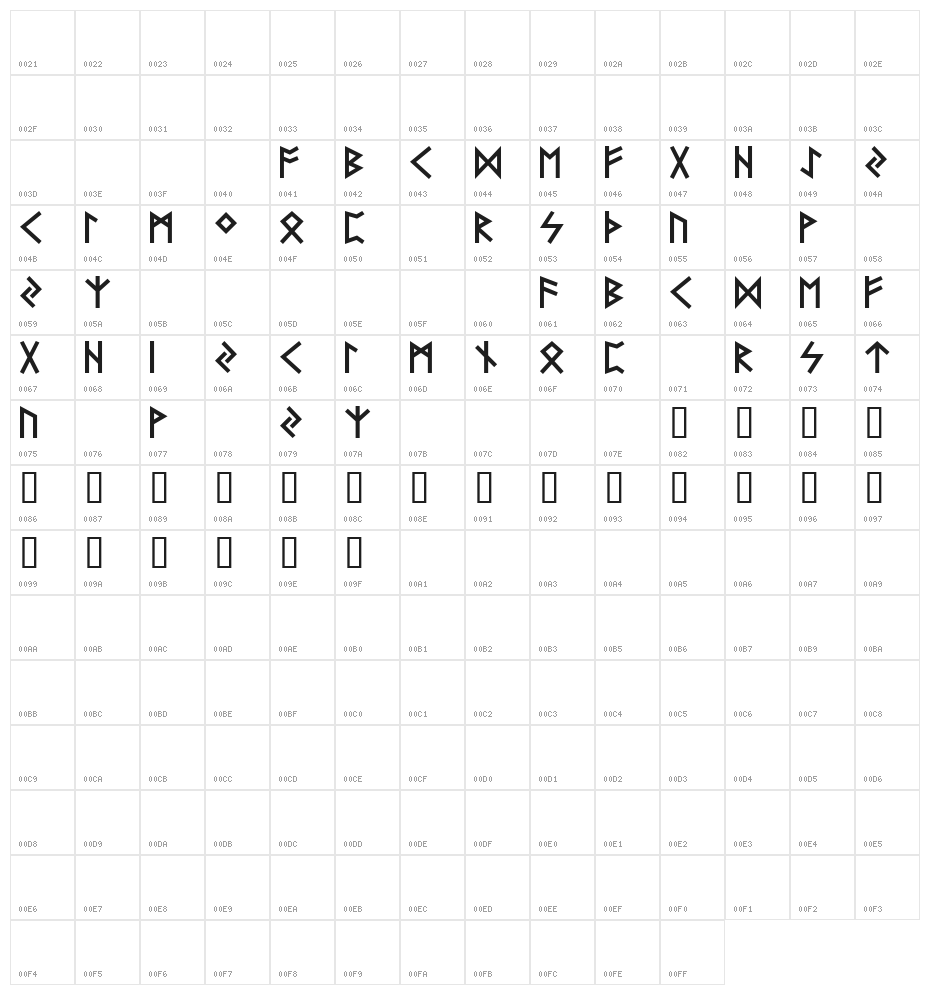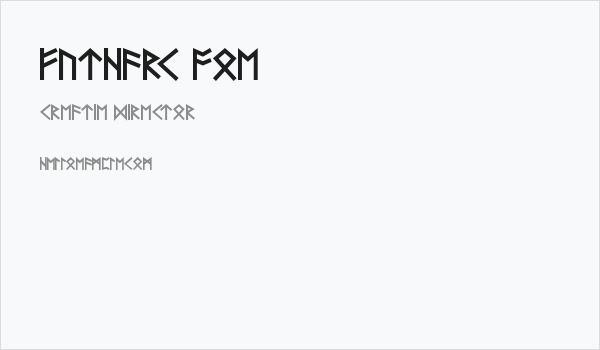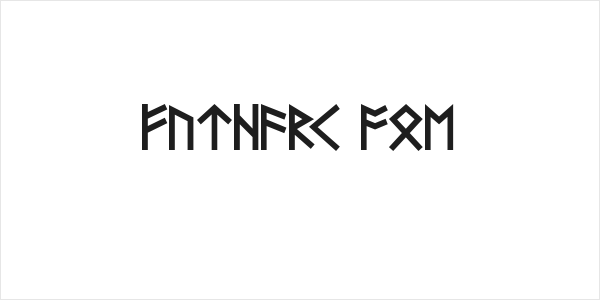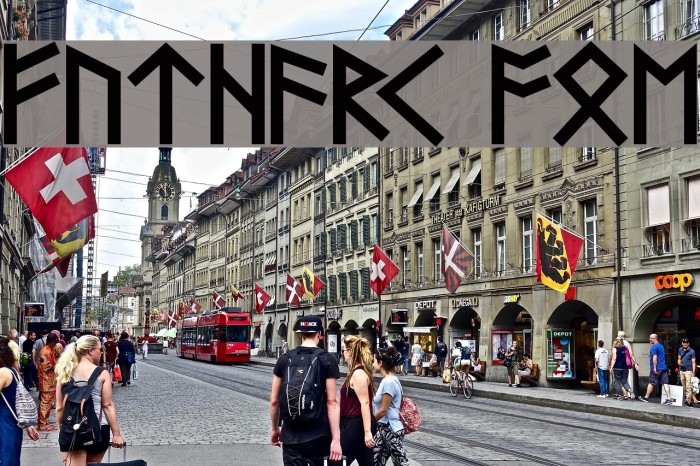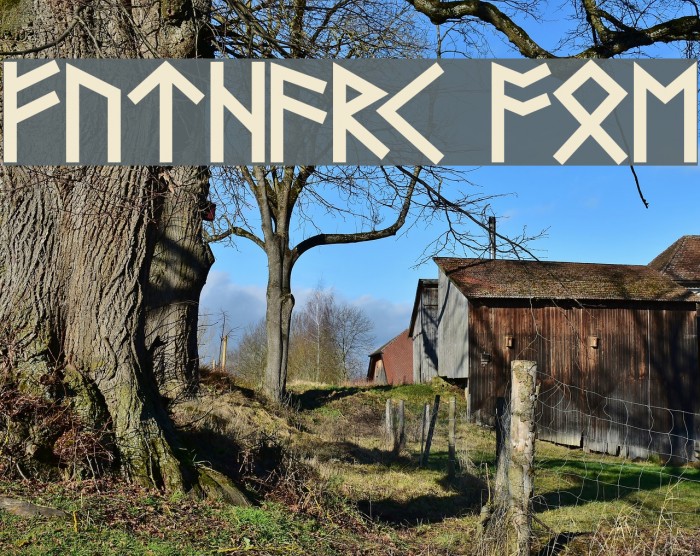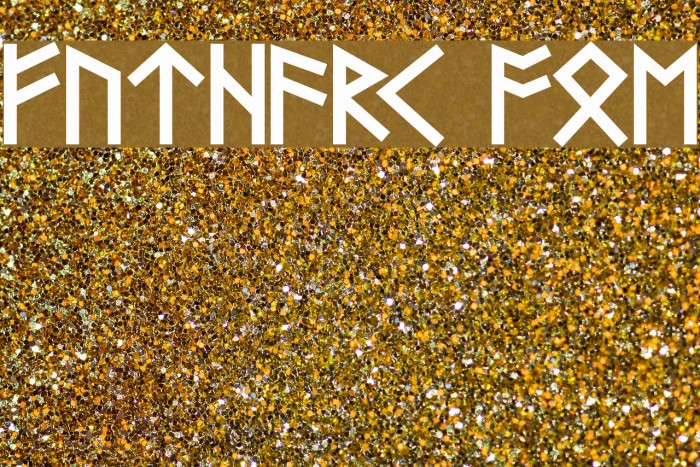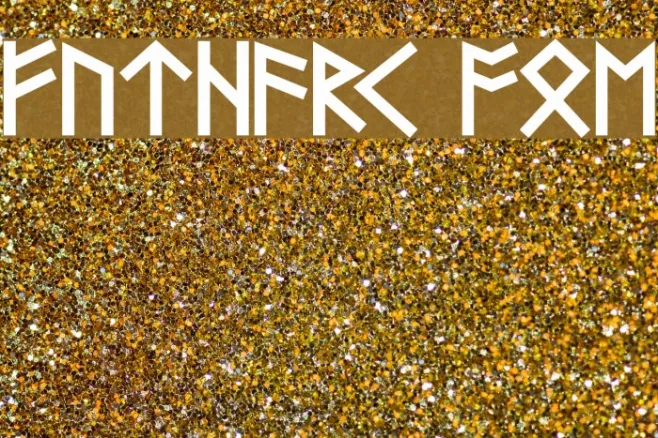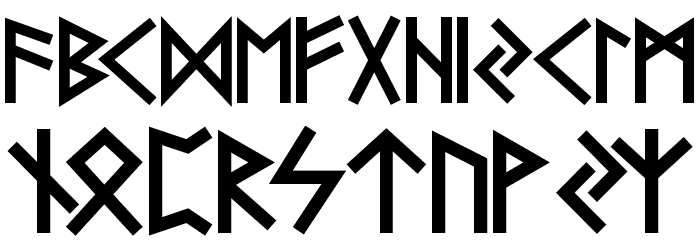
Futhark AOE Font
Futhark AOE Description
This font is inspired by ancient runic alphabets, featuring angular and geometric shapes that evoke a sense of mystery and history. The characters are bold and striking, with sharp edges and a uniform thickness that gives them a strong presence. The design is reminiscent of traditional Nordic runes, making it ideal for projects that require a touch of the ancient or mystical. Each letter is distinct, yet they all share a cohesive style that ties the alphabet together. The font's unique aesthetic makes it suitable for creative and thematic designs.
| Overall Style | Vintage |
| Use Case | Logos, Headlines, Thematic designs |
| Proposed Projects | Ideal for fantasy-themed projects, historical recreations, game design, and decorative purposes. |